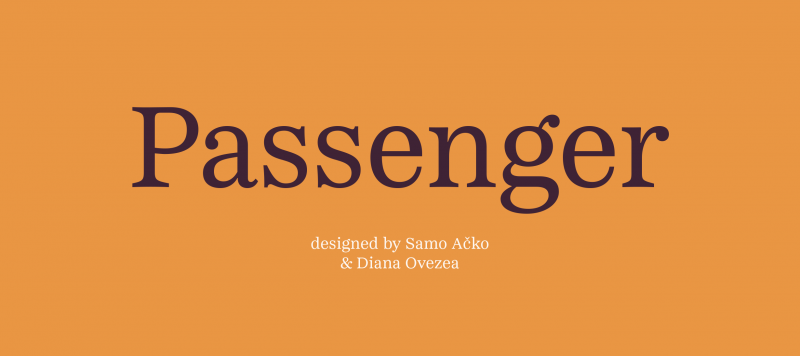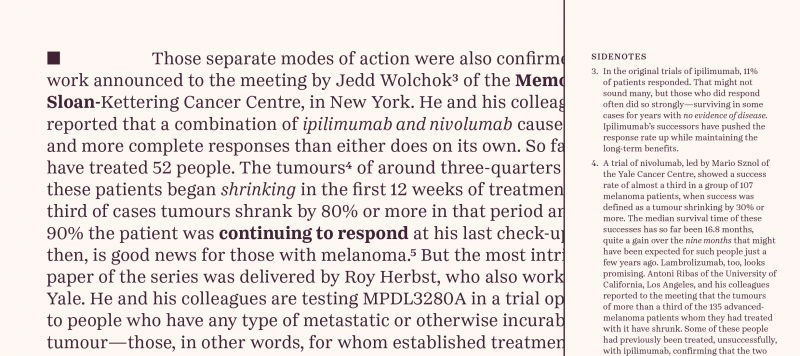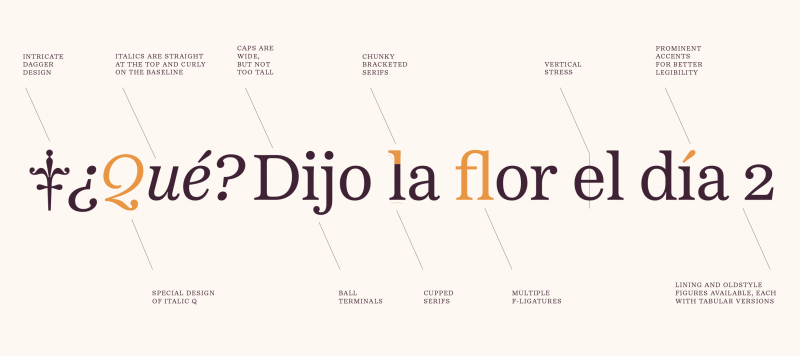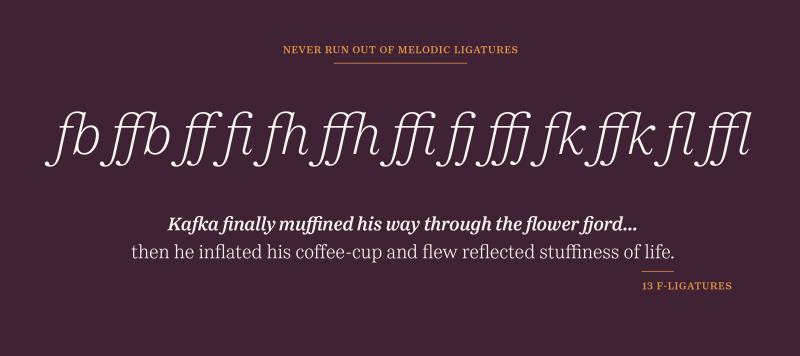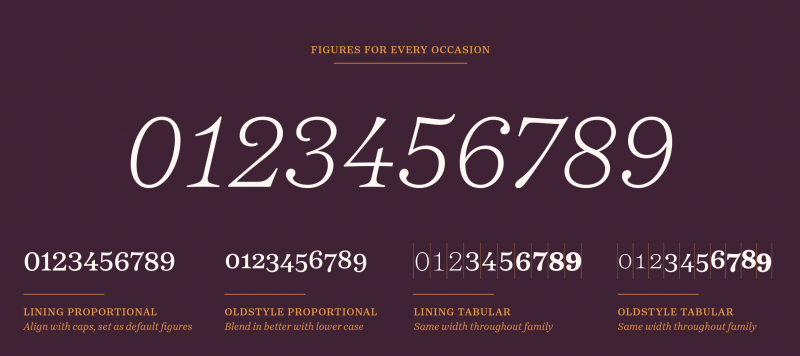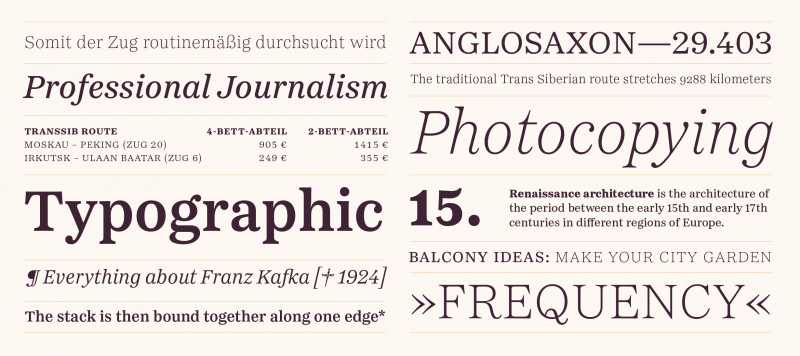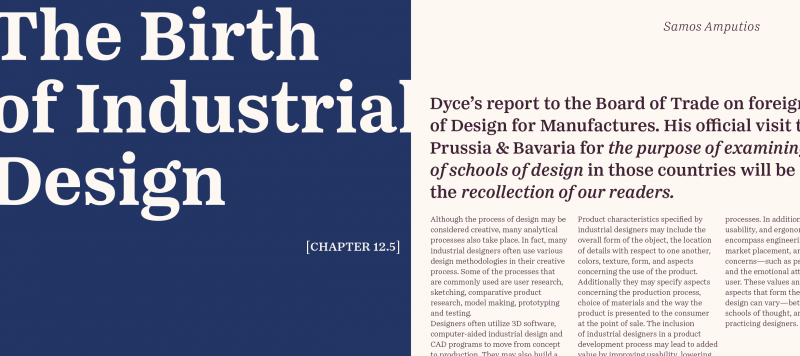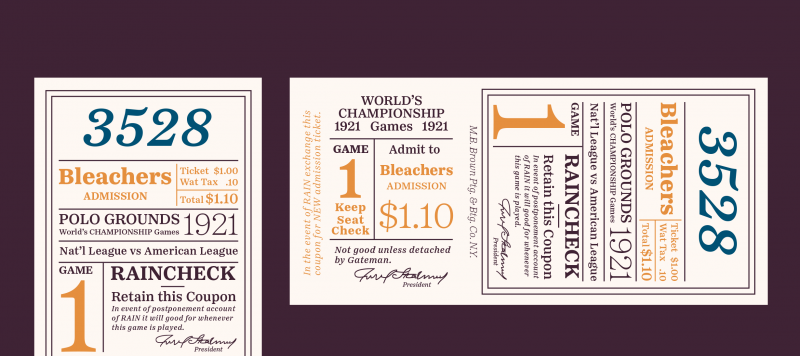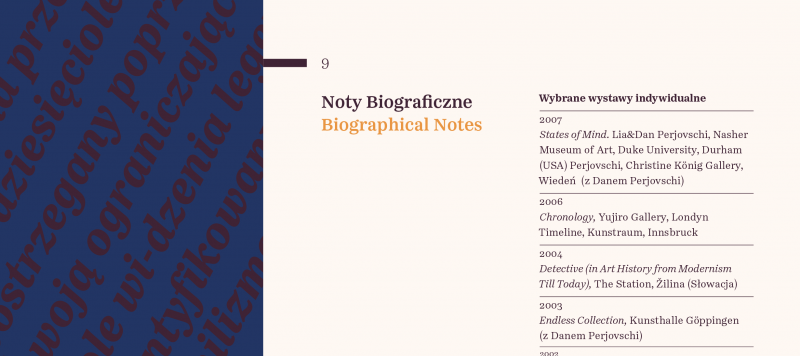
Passenger Serif is a Clarendon-style font family designed for use in long passages of text intended for immersive reading. It takes the idea of mid-nineteenth century English Clarendon types – like vertical axes of stress, lots of ball terminals, and chunky bracketed-serifs – and channels them into a face that is very legible in small sizes. It is comfortable to read, too. Passenger Serif is ready for use in editorial design, and for body text in novels and other books, too. The family includes seven weights, ranging in style from Extralight through Extrabold. Each weight has both an upright font and an italic on offer. The fonts’ default numerals are proportionally-spaced lining figures. Via the OpenType features, there are also oldstyle figures and tabular figures available, as well as a full range of numerators and denominators for typesetting fractions. The ascenders of the lowercase letters rise up above the tops of the capitals. In the upright fonts, the ‘a’ and the ‘g’ are double-storied. In the italics, they are single-storied. Each font includes 13 f-ligatures. Passenger Serif has a companion typeface available for larger-sized applications: Passenger Serif Display. Passenger Serif and Passenger Serif Display can be used together to powerful effect in magazine layouts, or in exhibition design graphics. The Passenger Serif families were designed by Diana Ovezea and Samo Ačko.
| Family Name | Passenger Serif |
|---|---|
| Designer(s) | Diana Ovezea, Samo Ačko |
| Classification | Serif |